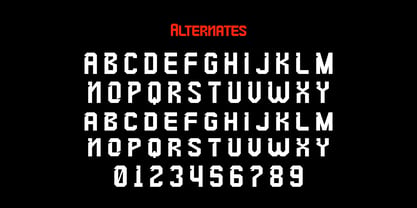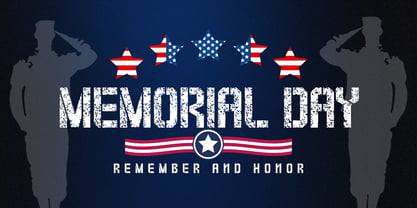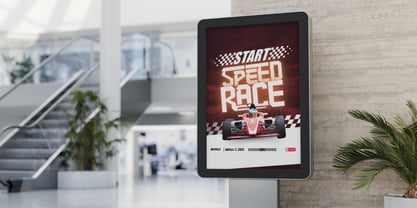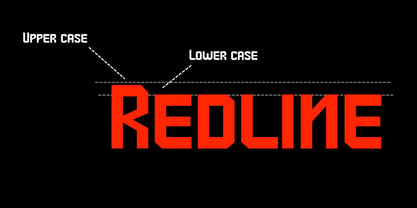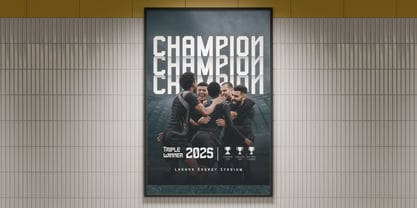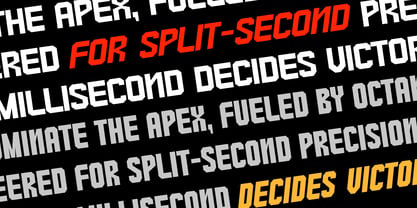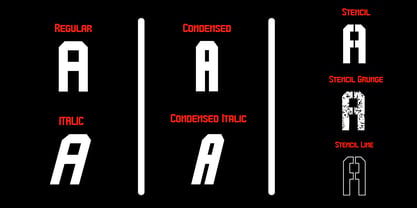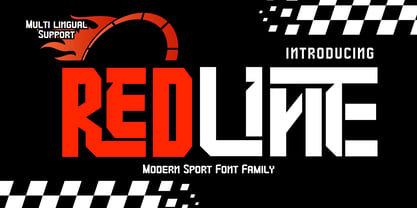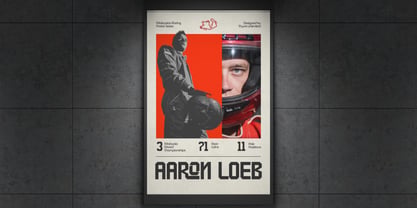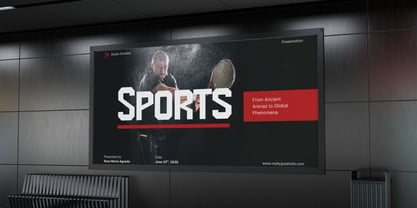
The Redline Font Family was designed by Nattha​ Potchanad​ and published by Brown Cupple Typeface. Redline contains 7 styles and family package options. More about this family
Redline – the athletic typeface that has been conceived from the spirited aesthetics of America’s favorite pastime. With a solid infusion of retro-chic, Redline delivers a vivacious persona that’s ideal for team jerseys, sports-themed logos, event publicity, and products craving a bold, self-assured aura. Capturing the essence of dynamic gameplay, this font instills a perception of energy and robust flair to your designs. Dive into the world of sports and vintage aesthetics with Redline typeface.
Redline